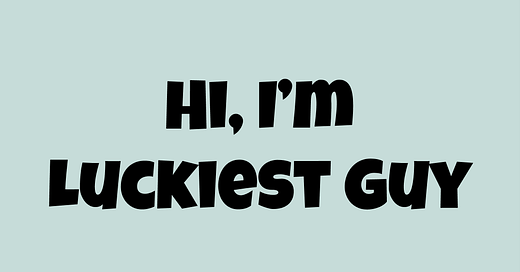
FontDiscovery 🖼️ 76: A Cheerful Font for Marketing, Ads or a Retro Graphic?
It’s been a while since we featured a hand lettering-inspired font. So today, I thought it might be fun to do so! Let’s get to it ✨